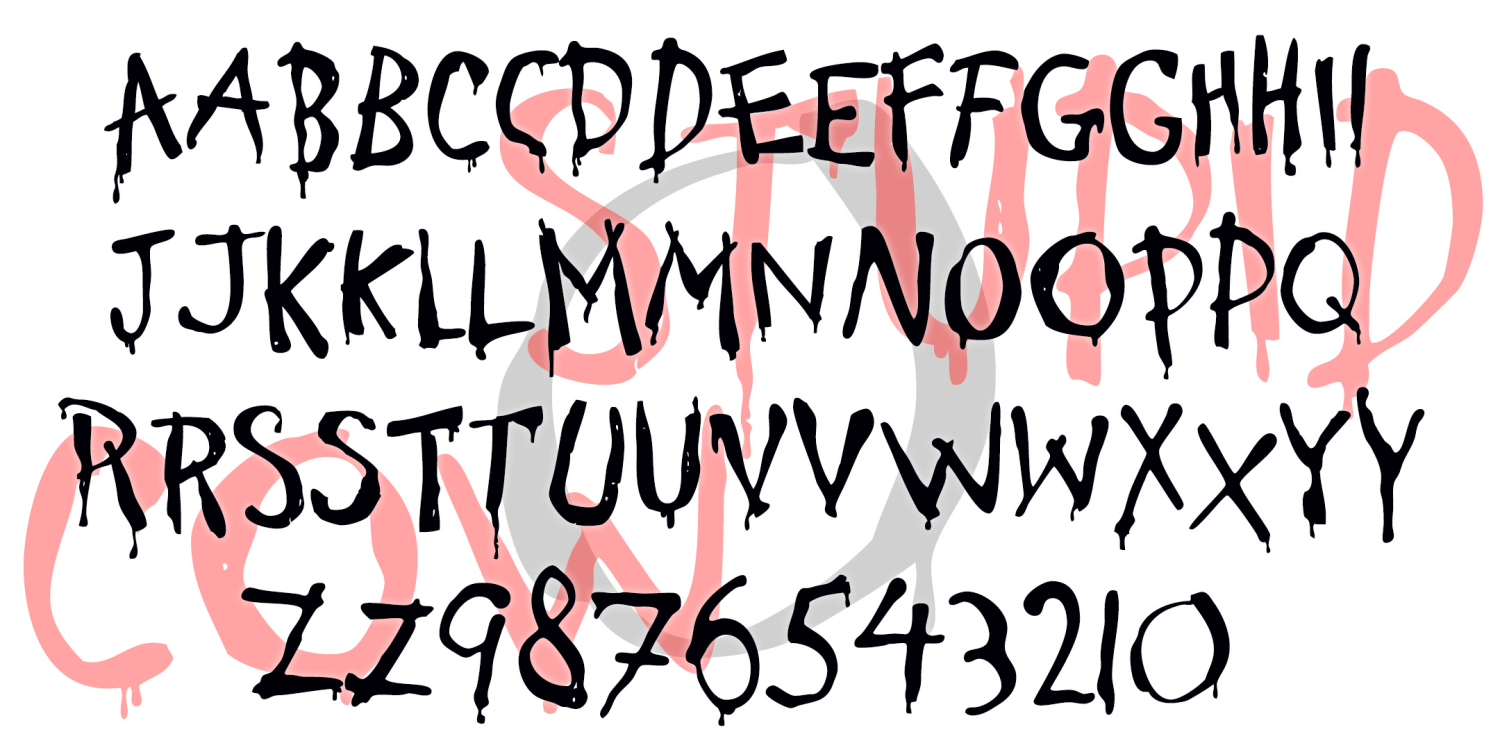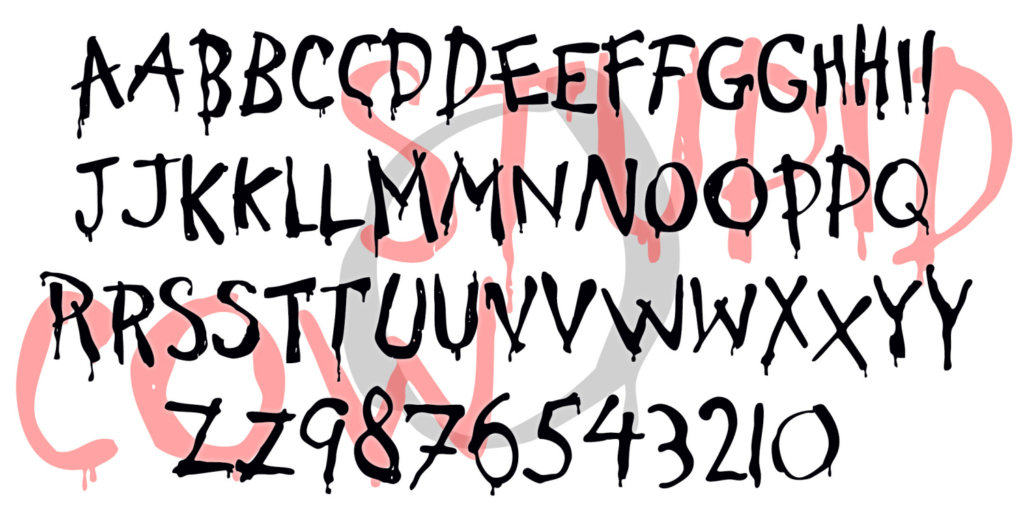
Stupid Cow
STUPID COW is a rustic font that looks hand-painted. It suggests weak sign-painting skills rather than the ignorance of, for example, backward letters. In the right context, the drips might suggest horror, but this is basically a fun font that suggests…